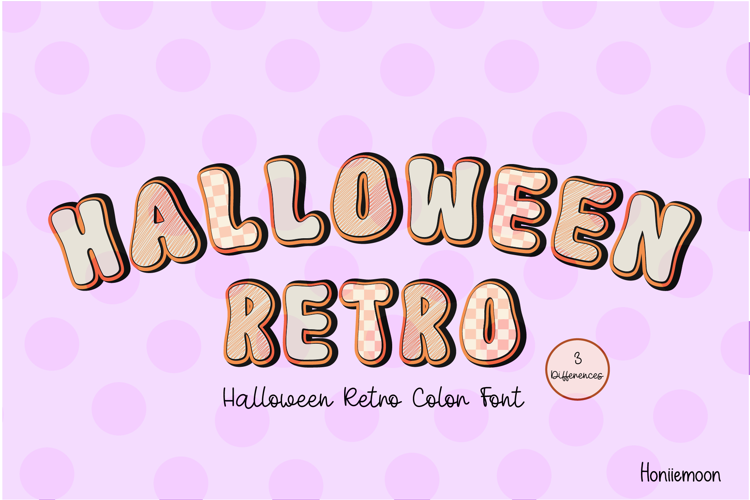
Halloween Retro is a fun Color display font, perfect for your favorite projects such as posters, flyers, social media, movie and book titles, invitations, stickers t-shirts, logos, advertisements, clothing, and so much more.